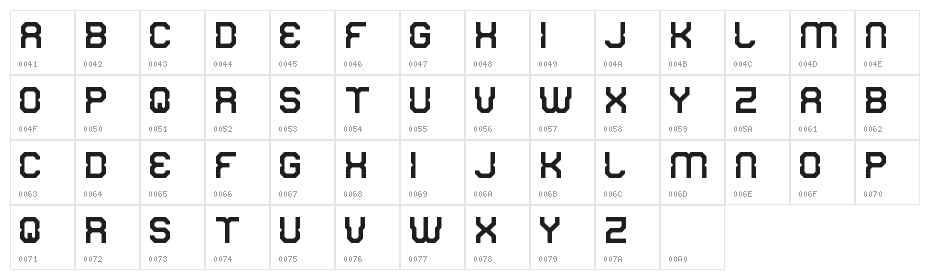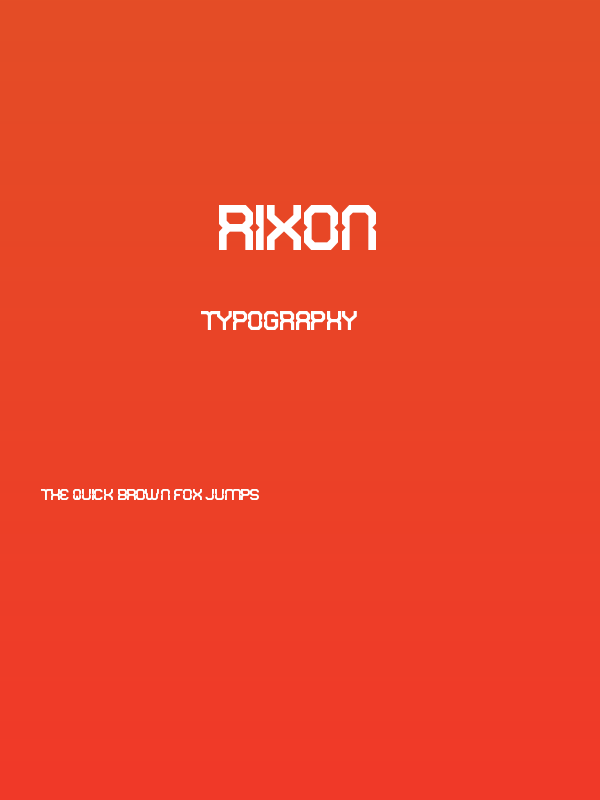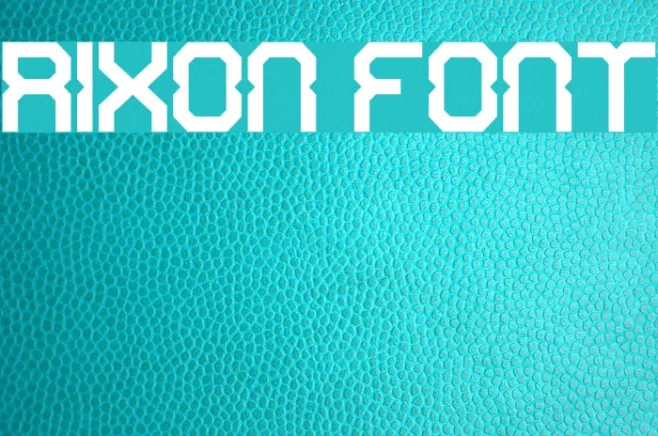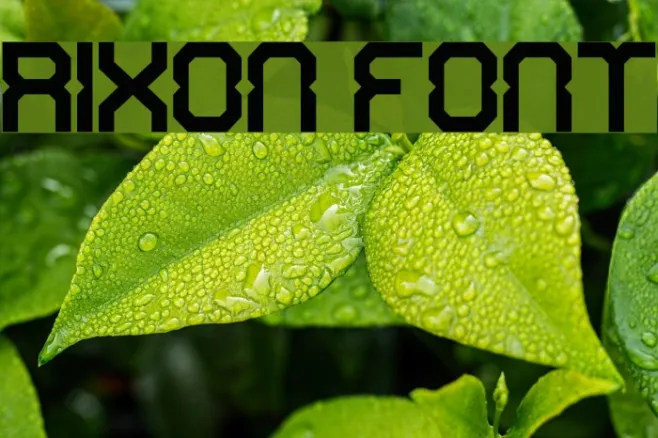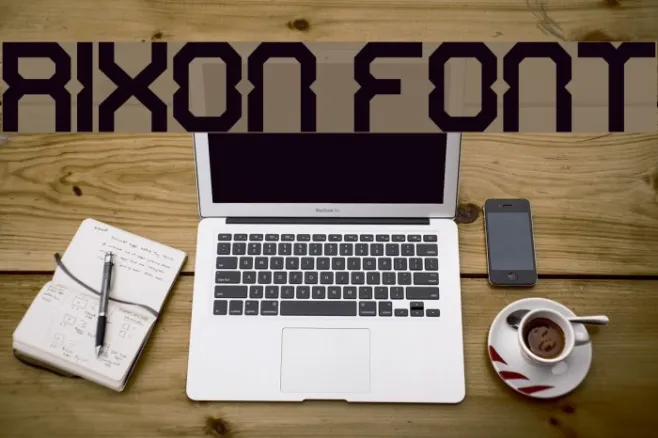
Rixon Font
Rixon Description
This font features a bold, geometric design with a modern and futuristic aesthetic. Each character is constructed with a series of straight lines and sharp angles, creating a blocky and robust appearance. The uniformity in line thickness across all characters gives it a cohesive and structured look. The uppercase letters are particularly striking, with their angular forms and consistent height, while the lowercase letters maintain the same geometric style, ensuring readability and visual harmony. The numerals and special characters follow the same design principles, making them easily recognizable and visually compatible with the alphabetic characters. This font's unique style makes it stand out, ideal for projects that require a strong and contemporary visual impact.